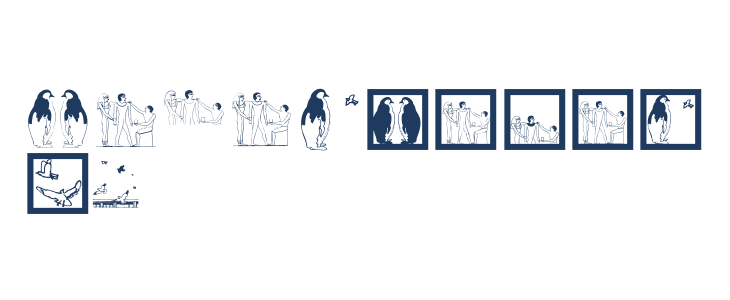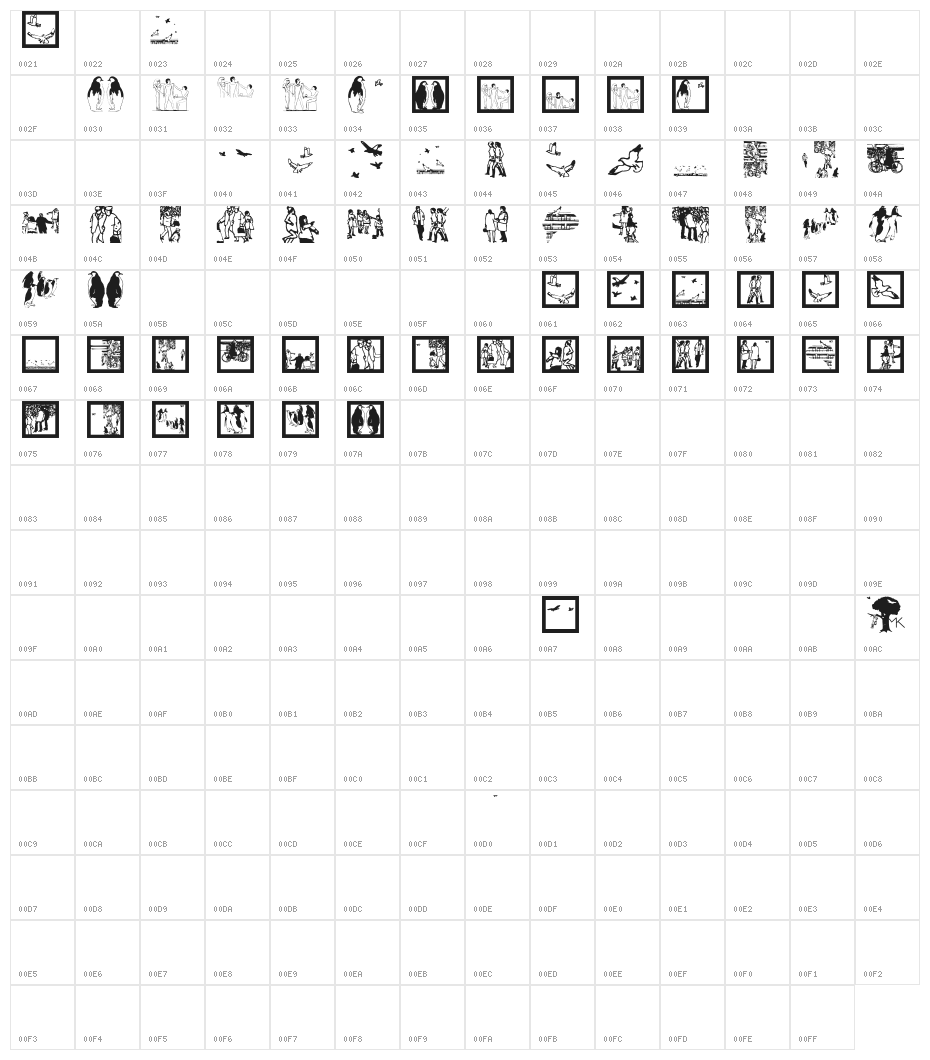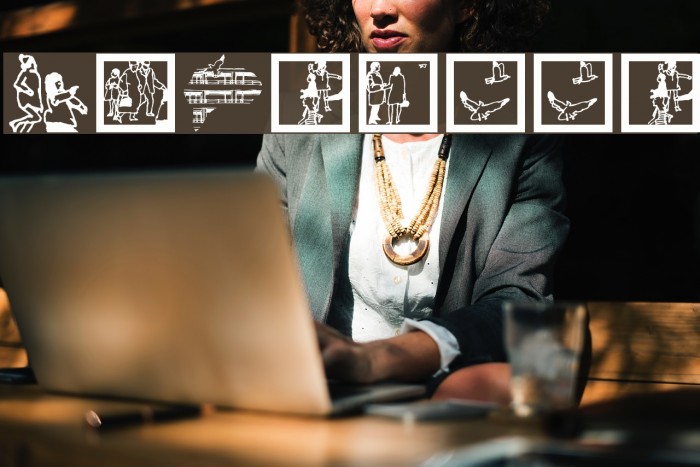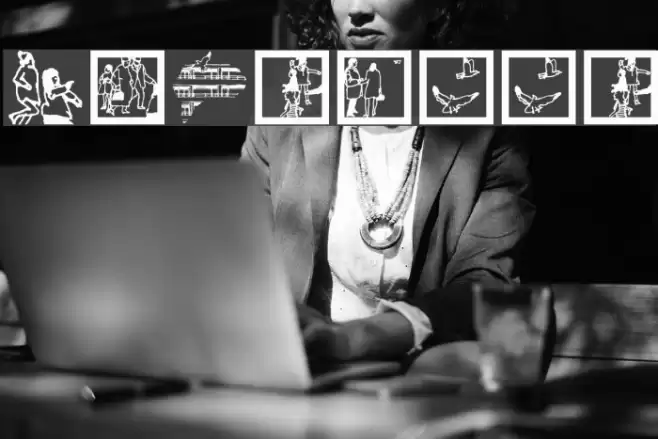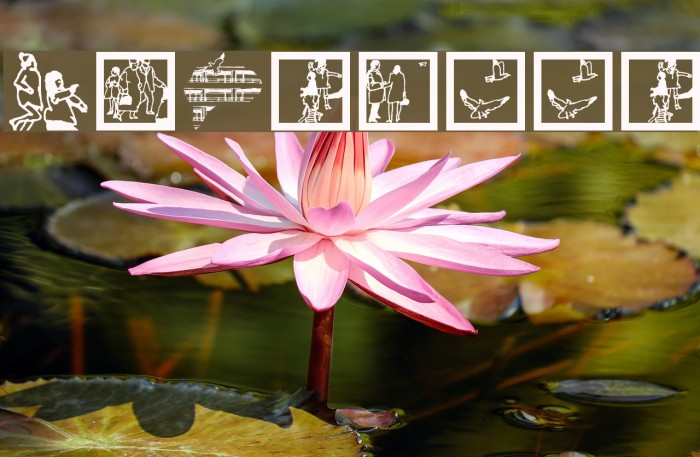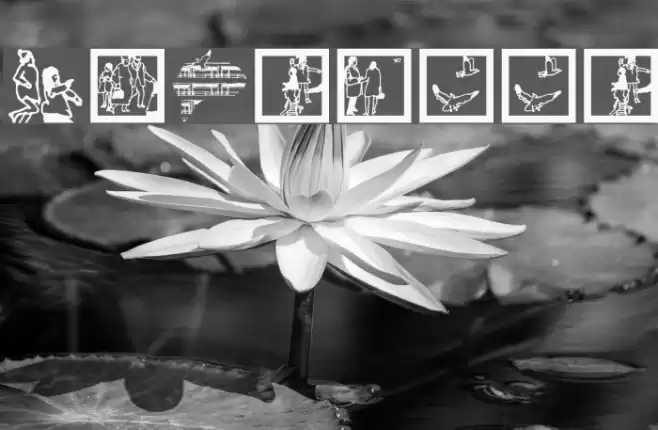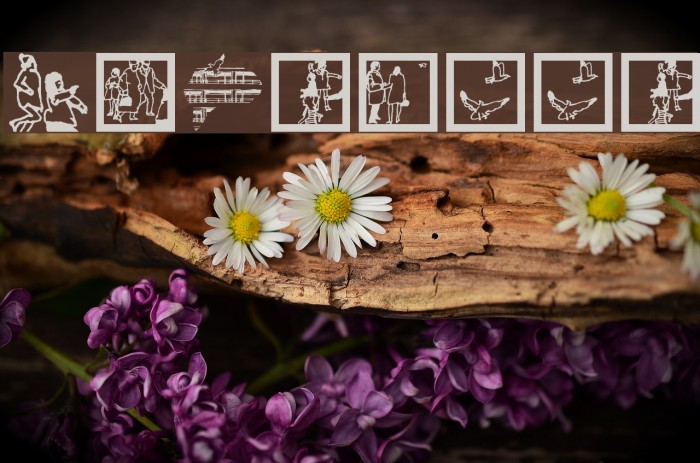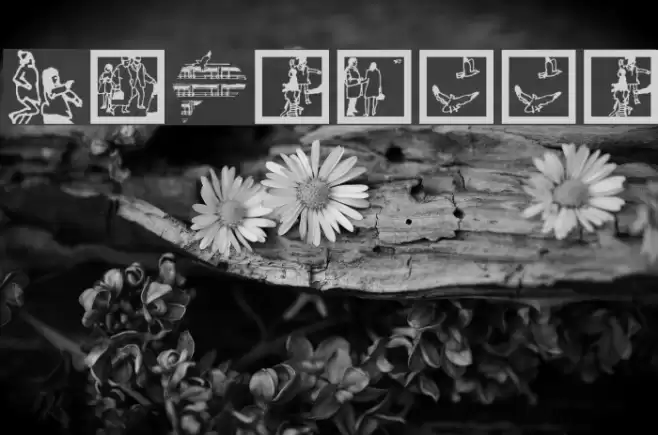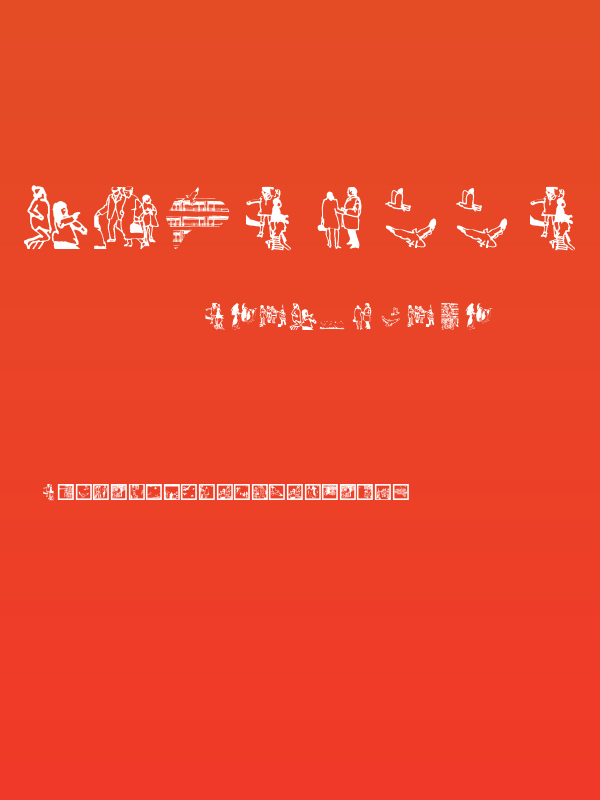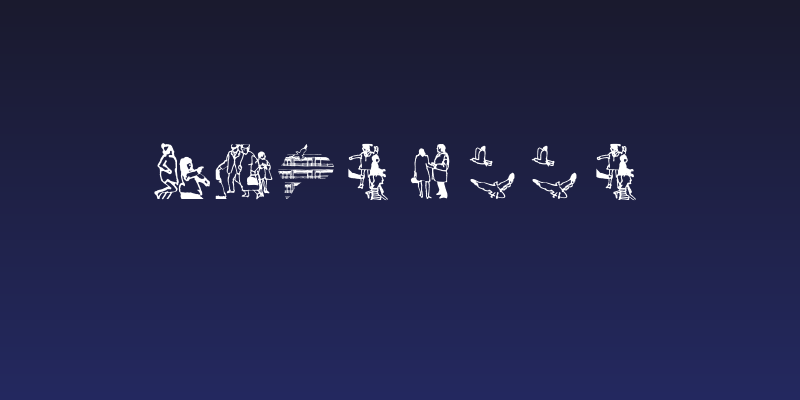
OnStreet Font
OnStreet Description
A highly decorative and illustrative font composed of detailed street scene silhouettes, including people, birds, and urban elements, with each character represented by a unique pictorial vignette rather than traditional letterforms.
| Overall Style | Decorative, Artistic, Urban |
| Use Case | Logos, Headlines, Posters, Artistic compositions |
| Proposed Projects | Posters, album covers, art projects, creative branding, event invitations, urban-themed designs. |